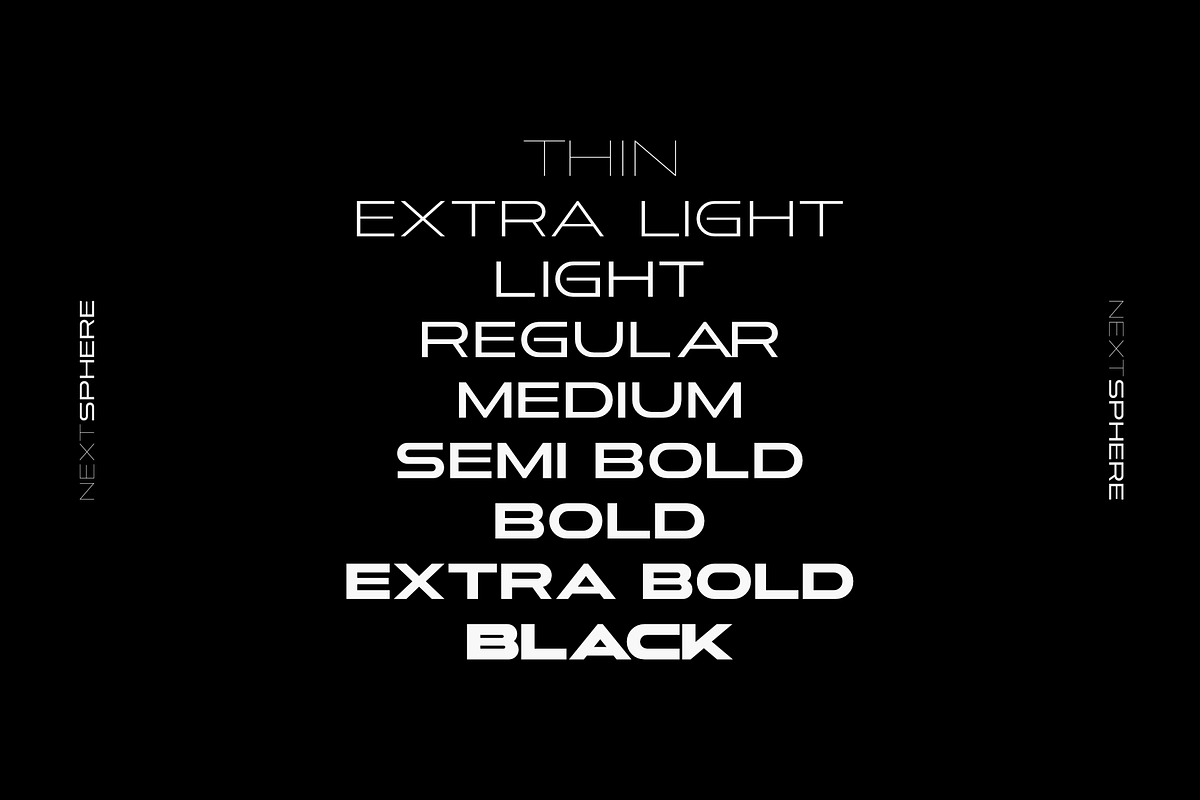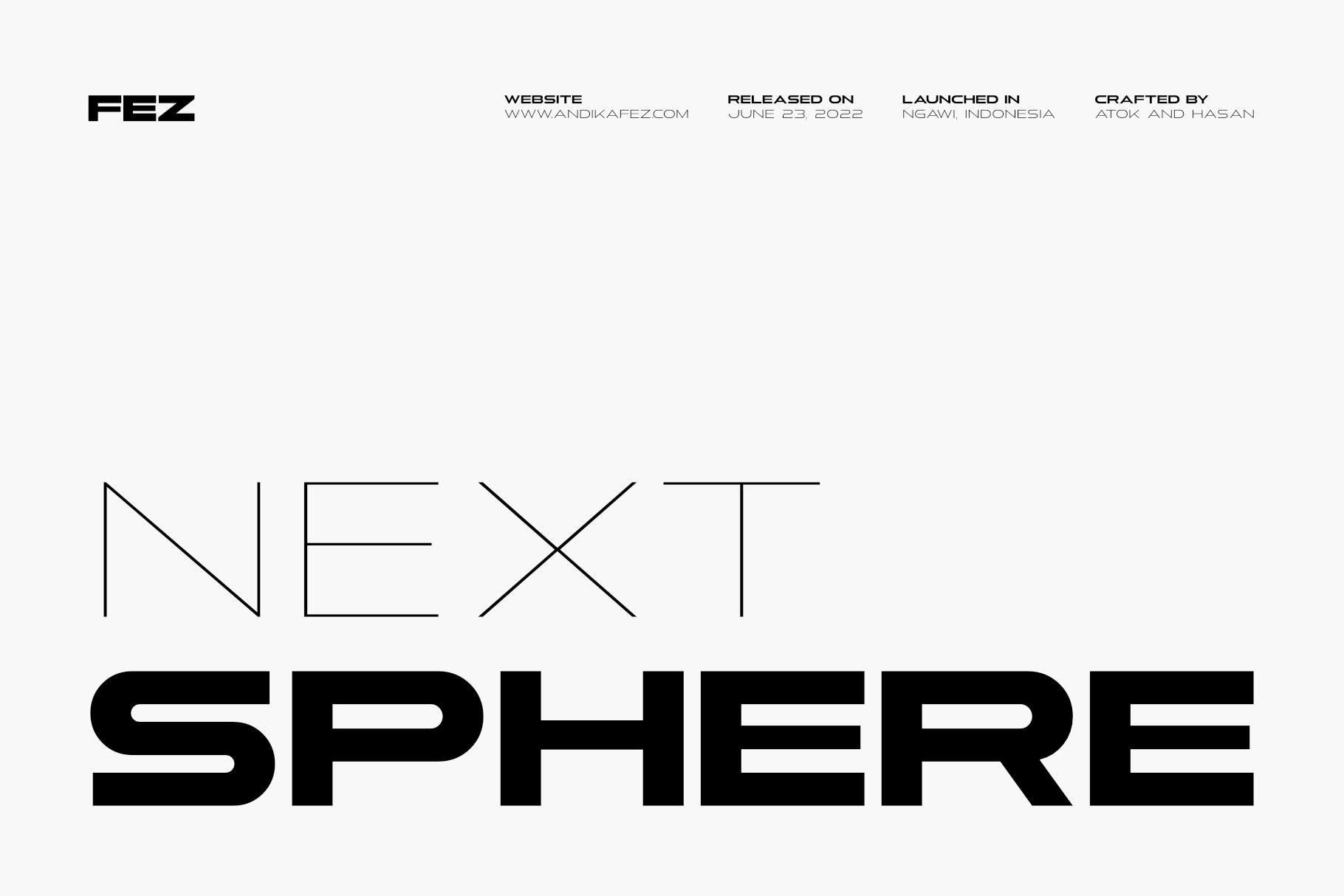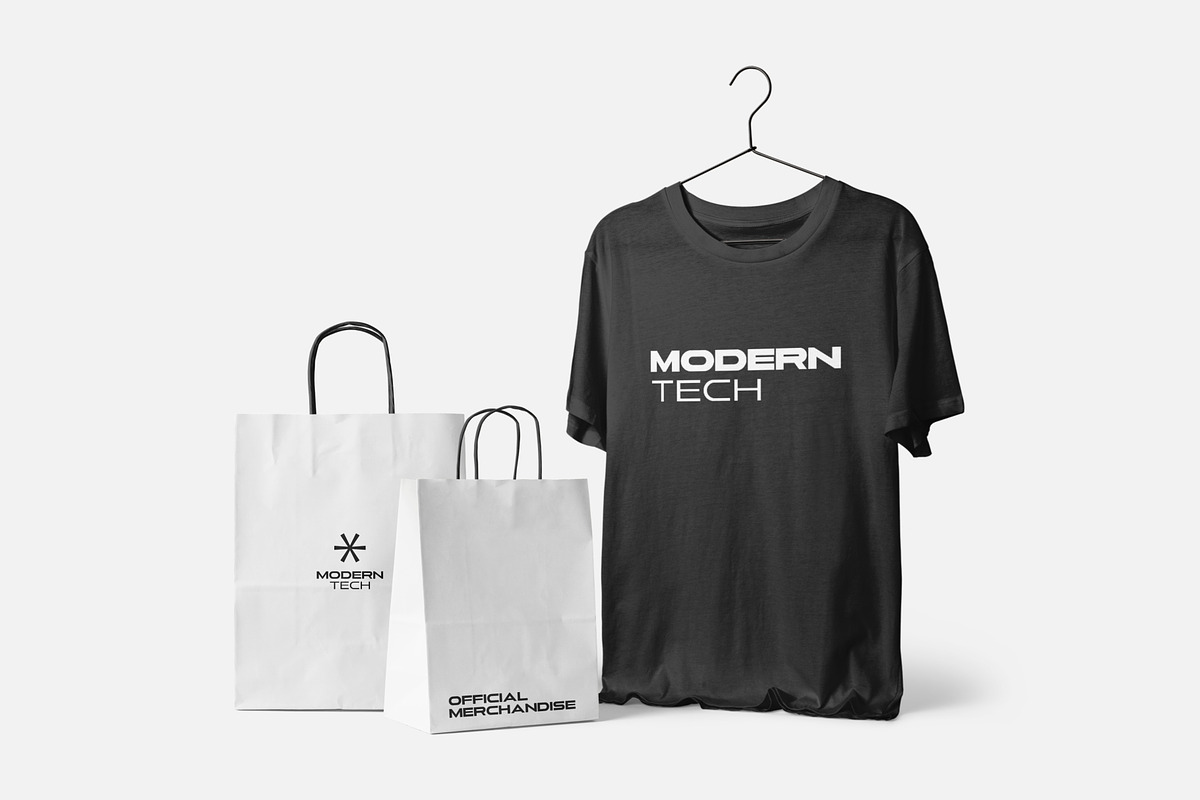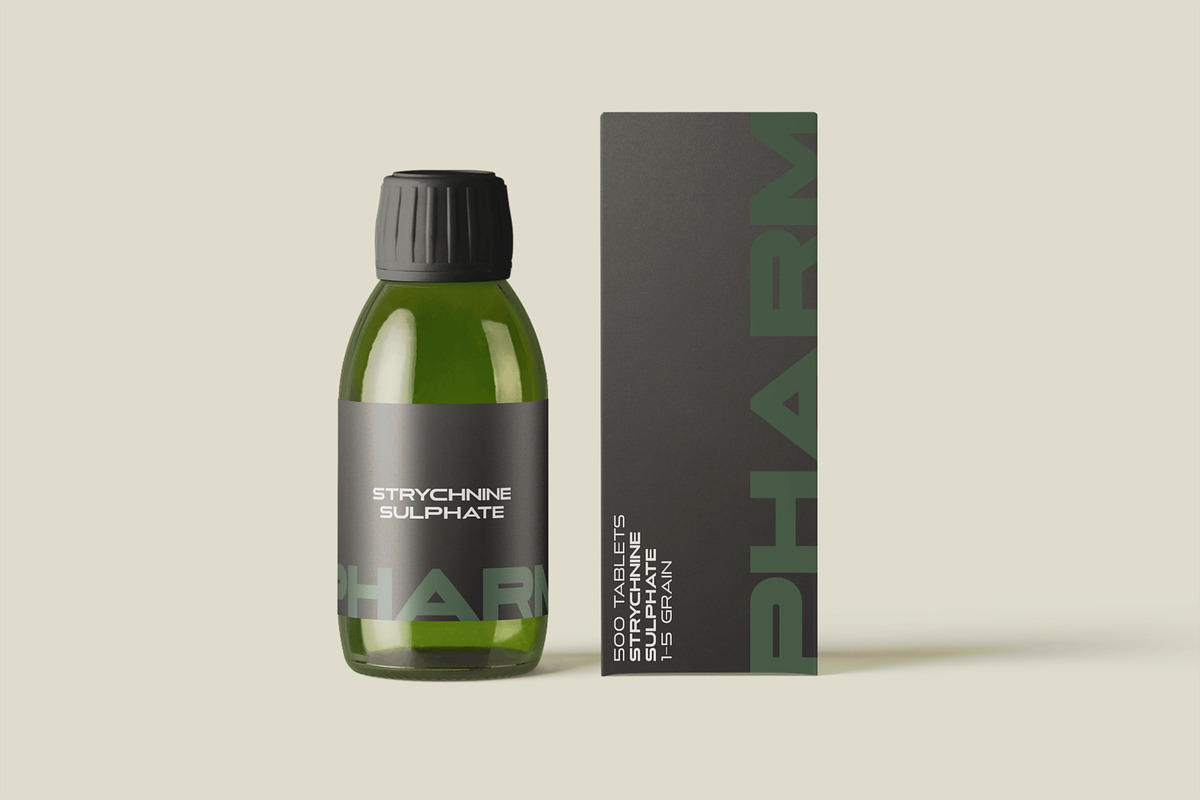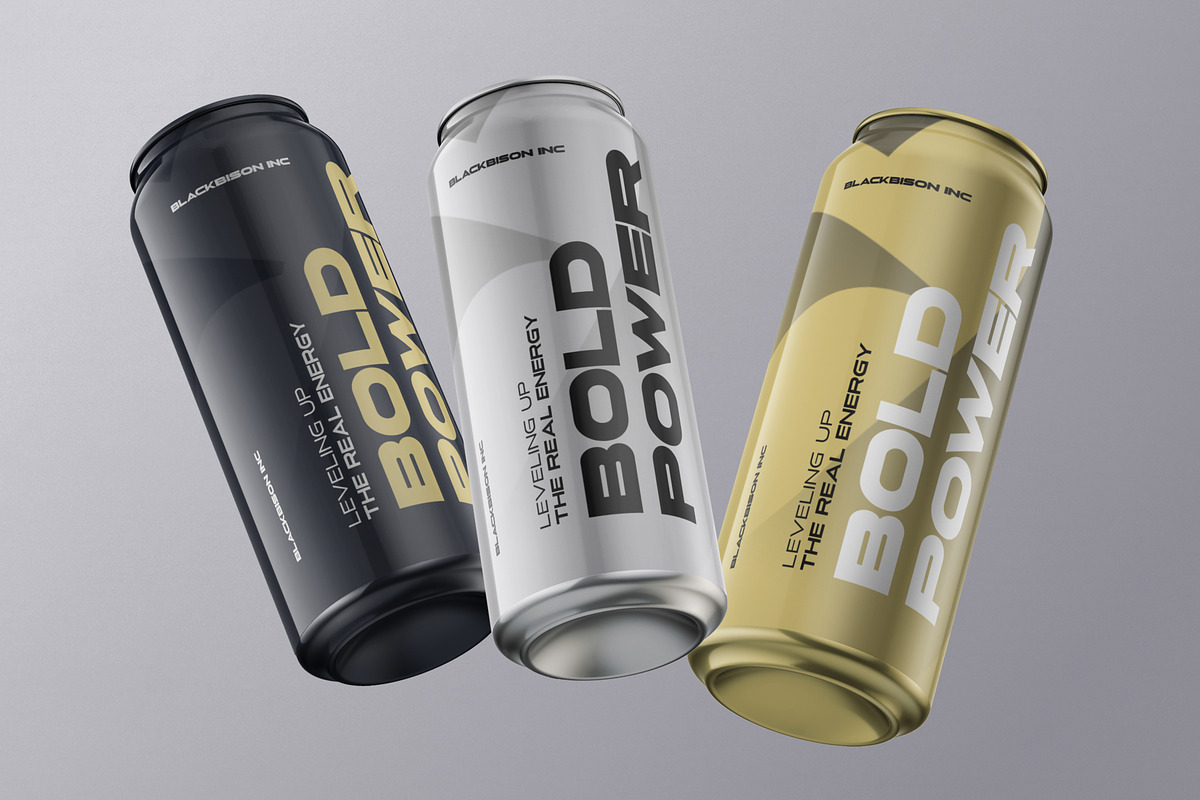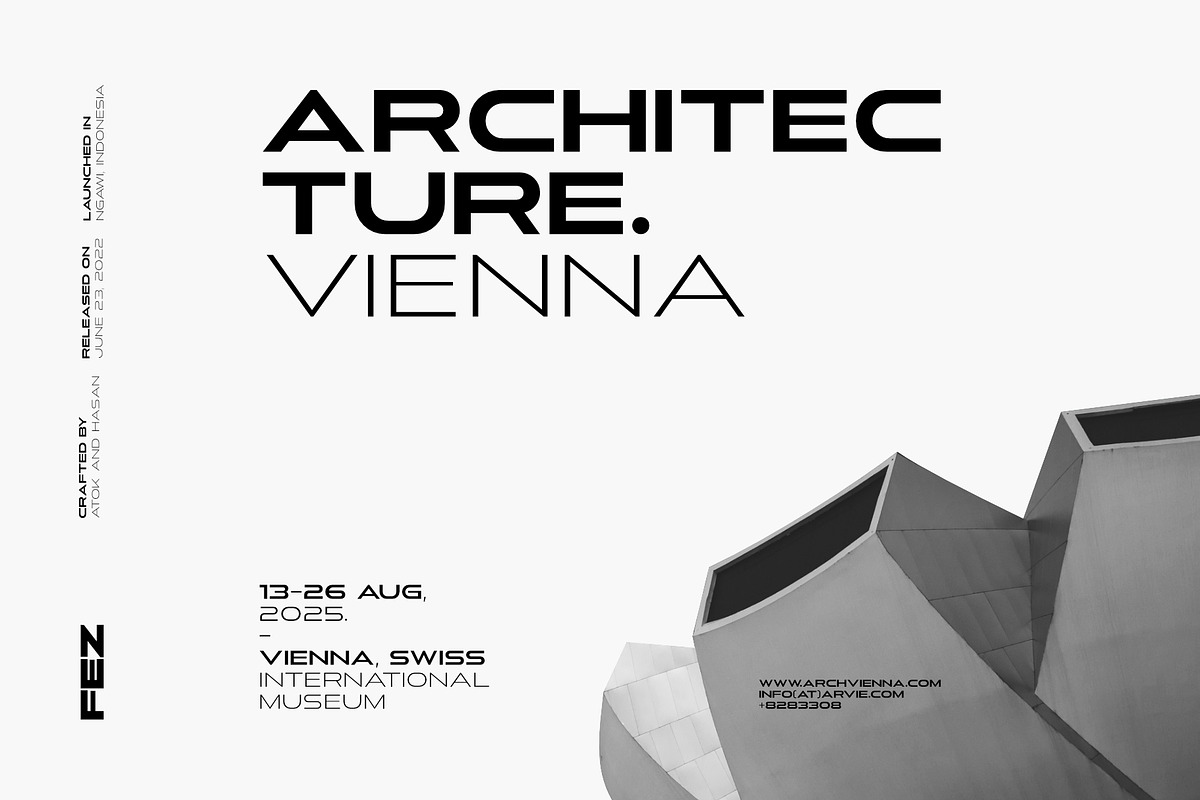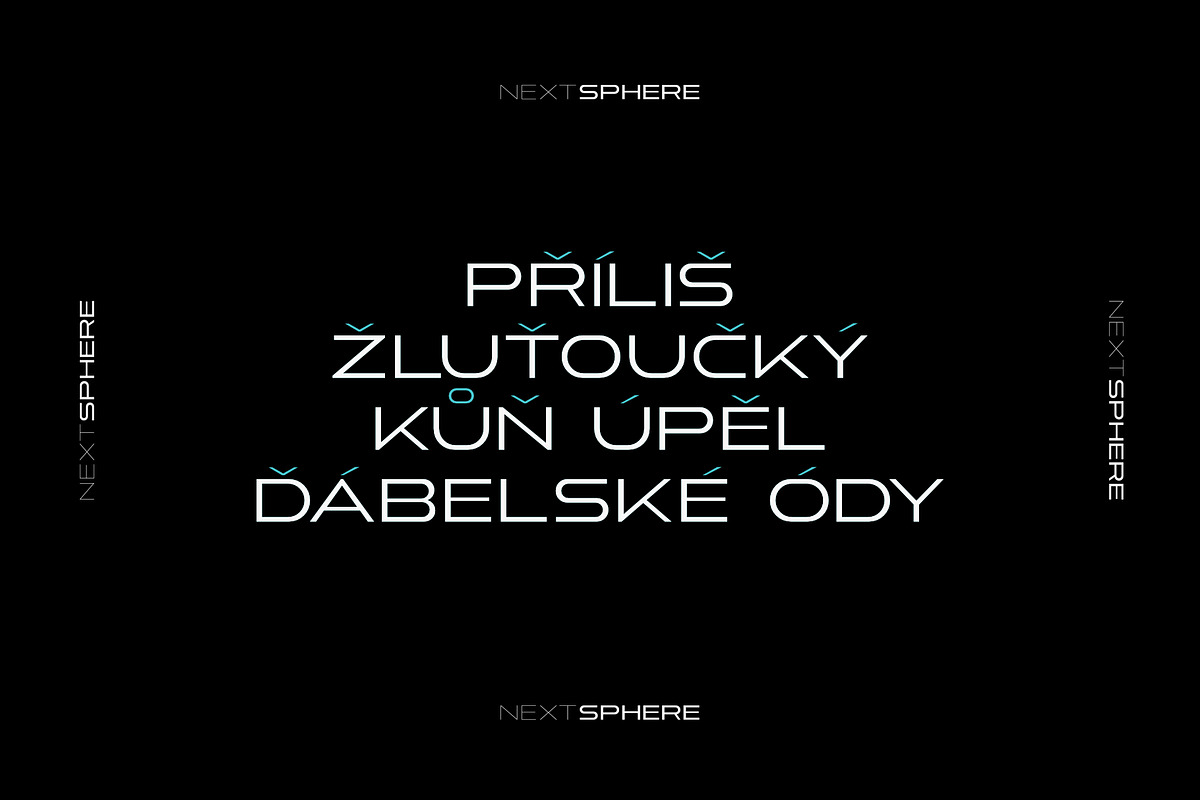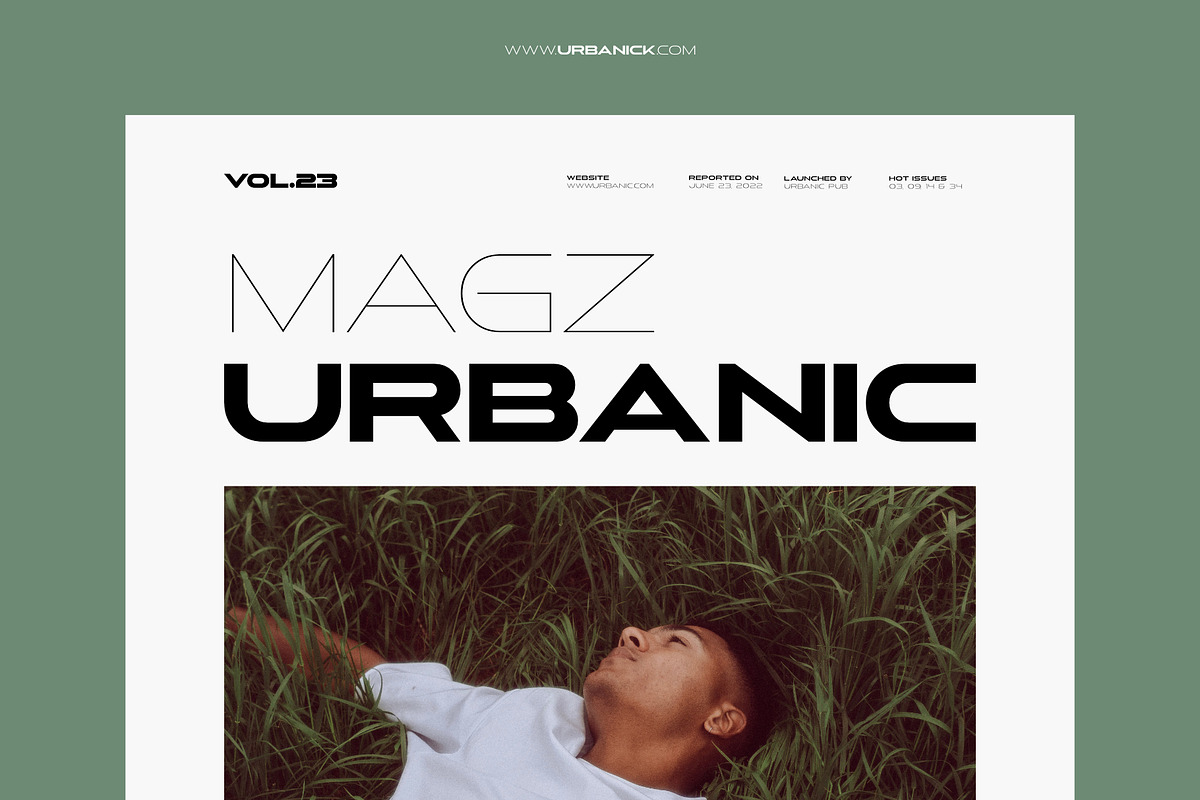
Next Sphere Modern Tech Logo Font
Next Sphere is a sleek, modern font family built for the future of design. Perfect for logos, branding, and all things creative, this bold sans serif brings a blend of elegance and technical precision to any project. Whether you're crafting a luxury fashion label, a modern tech brand, or a wedding invite that needs that clean, minimal touch, Next Sphere has you covered.
Inspired by the fusion of vintage aesthetics and cutting-edge engineering, it captures the spirit of innovation, technology, and futuristic elegance—making it ideal for everything from logo tech designs to high-end branding assets. The geometric structure and refined curves give it a sense of luxury without losing that modern edge, making it perfect for fashion, design, and branding work that demands both impact and subtlety.
Next Sphere is more than just a font—it’s a vision of tomorrow, crafted for the brands of today.